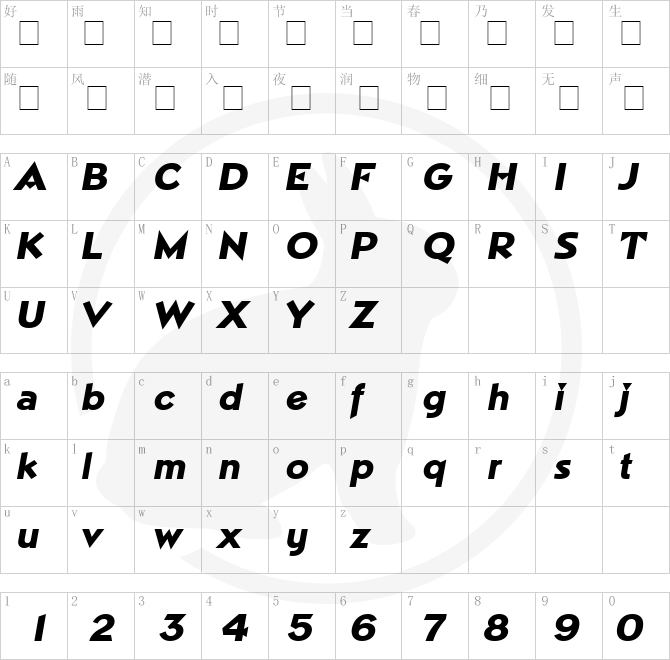
- Font Name:Napa Heavy SF
Napa-Heavy-SF-Bold-Italic.ttf is a very beautiful artistic font, Napa-Heavy-SF-Bold-Italic.ttf is widely used in the design and printing of various books and pictures,Napa-Heavy-SF-Bold-Italic.ttf has a strong visual impact,Napa-Heavy-SF-Bold-Italic.ttf is a commonly used font in newspapers, magazines and books, and is used in posters, e-commerce Poster design, store design, logo design, font design and other fields.Napa-Heavy-SF-Bold-Italic.